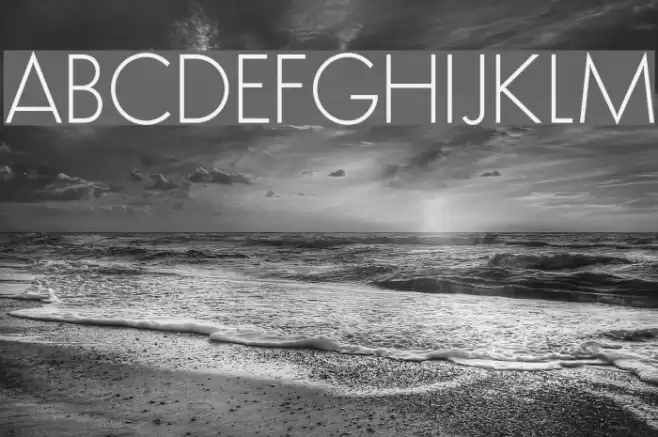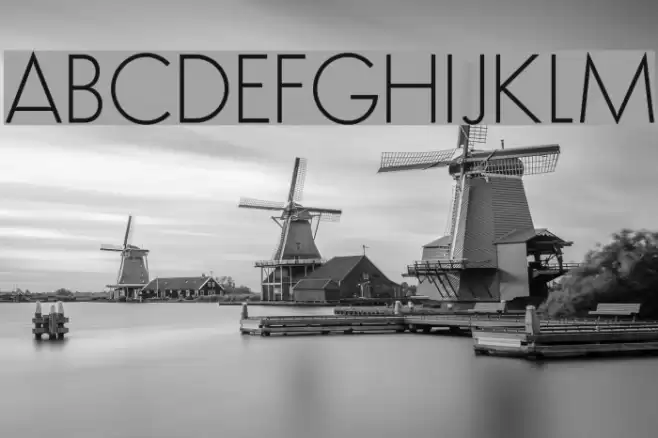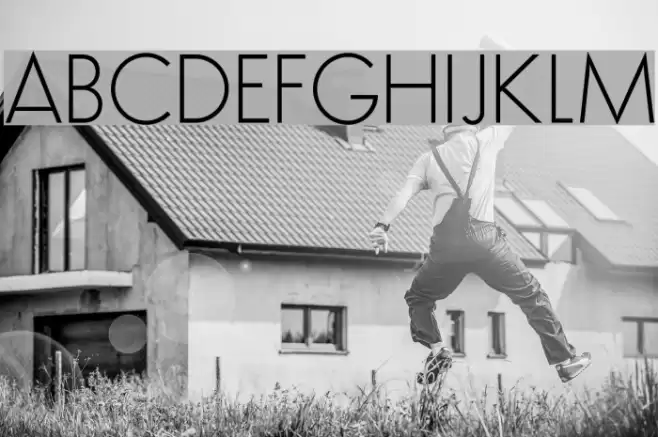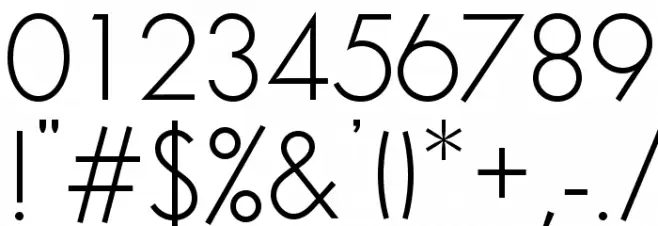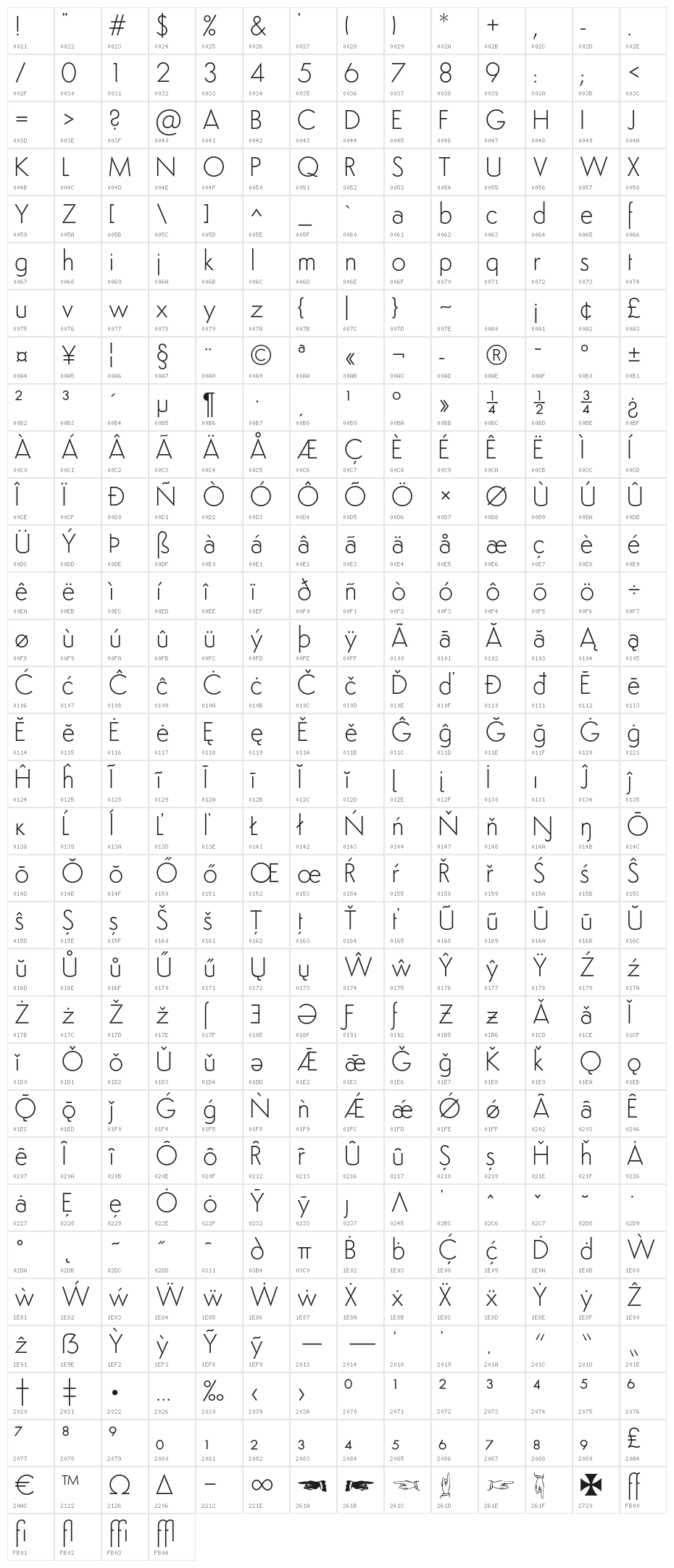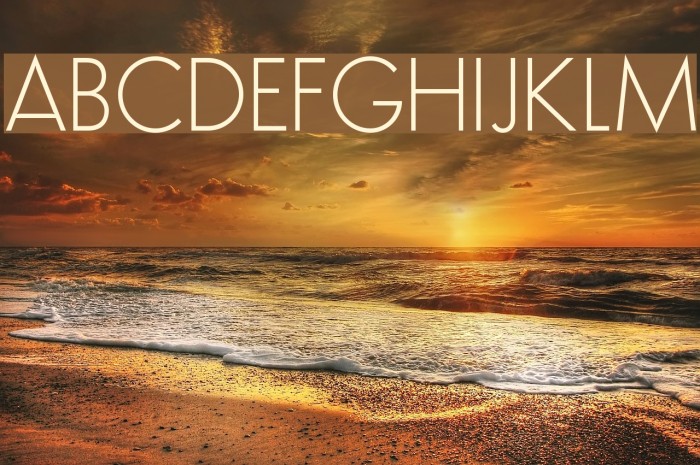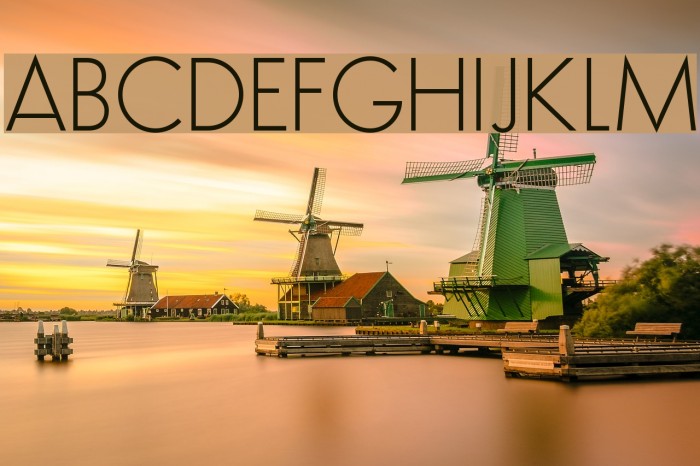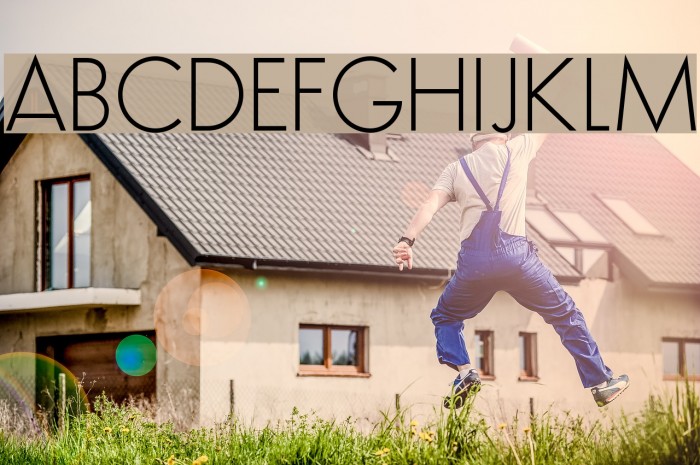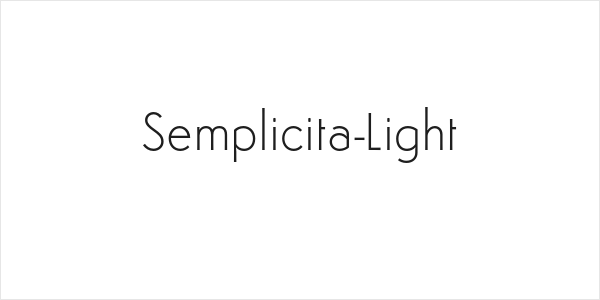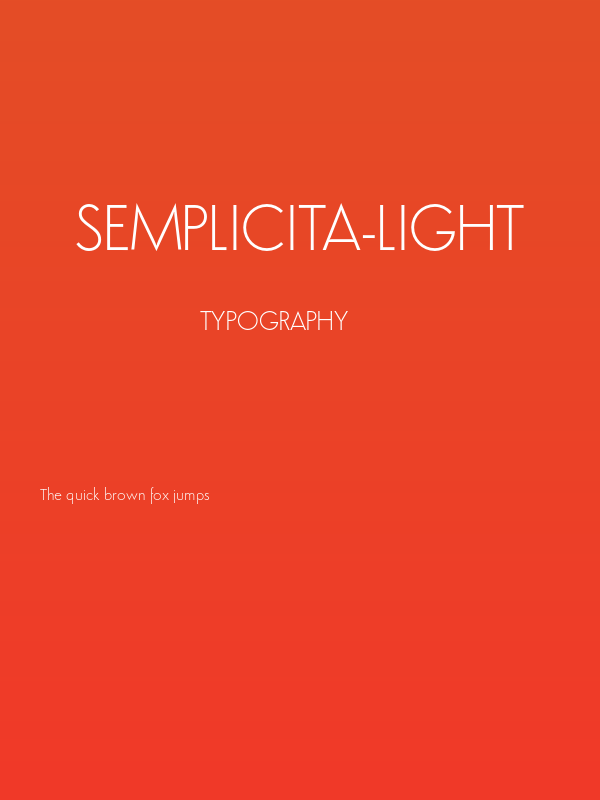
Semplicita-Light Font
Semplicita-Light Description
This font features a clean and minimalist design, characterized by its geometric shapes and uniform stroke widths. The uppercase letters are tall and elegant, while the lowercase letters maintain a consistent height, creating a harmonious balance. The numerals are straightforward and align well with the overall aesthetic. Special characters are designed with simplicity in mind, ensuring readability and versatility. The font's light weight and open character spacing contribute to its modern and airy feel, making it suitable for a variety of design applications.
A clean, geometric sans-serif font with a modern and minimalist style from Uncategorized fonts.
- Proposed Projects: Ideal for branding, editorial design, websites, and minimalist graphic design projects.